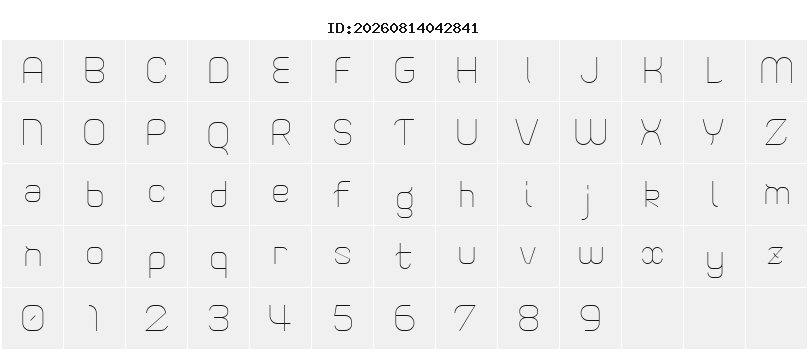
• Font Name: Sweet Confusion
• Font Style: LIGHT
• Full Font Name: Sweet Confusion
• Version: Version 1.001 2011
• PostScript Name: Sweet Confusion
• Designer: Vincent Wicky
• Manufacturer: Vincent Wicky
About Sweet Confusion.ttf
Sweet Confusion.ttf is a modern, elegant sans-serif font designed for ultimate readability and visual harmony. Perfect for branding, headlines, web design, and print materials.